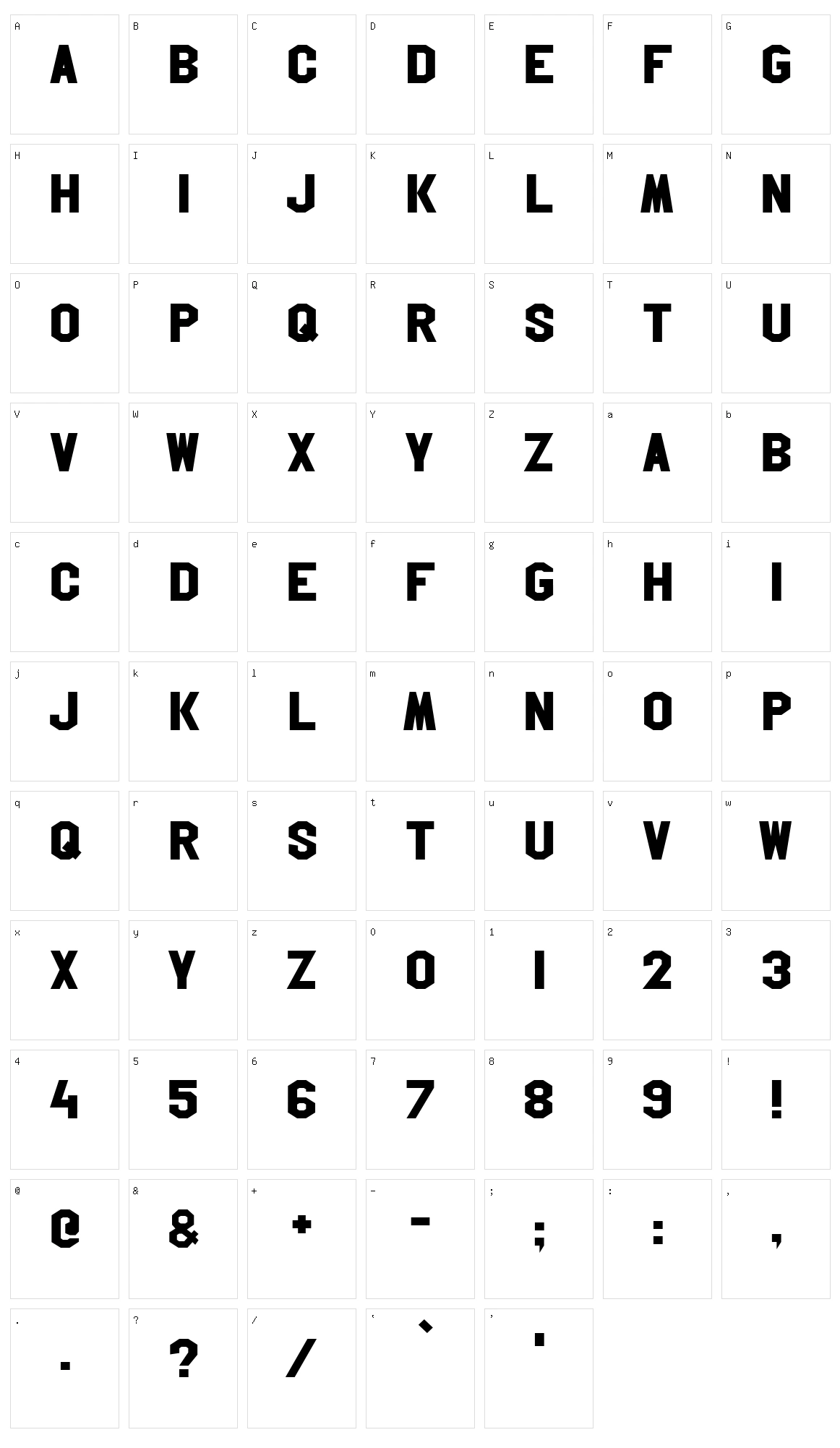
The free font Hollywood Hills is carefully designed by wsc, showcasing a thoughtful balance of creativity and usability and falls under the Old School font style. When you download the ZIP file, it contains only 11.53 KB of font files, making it lightweight and quick to download. Please review the license details below to understand permitted usage and distribution rights. If license information is not available, we recommend using this font for personal projects only or contacting the author directly for commercial usage permissions.